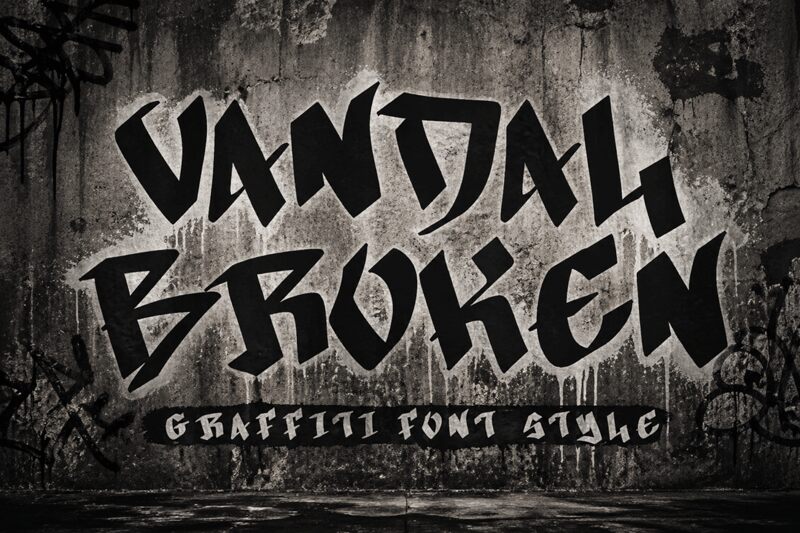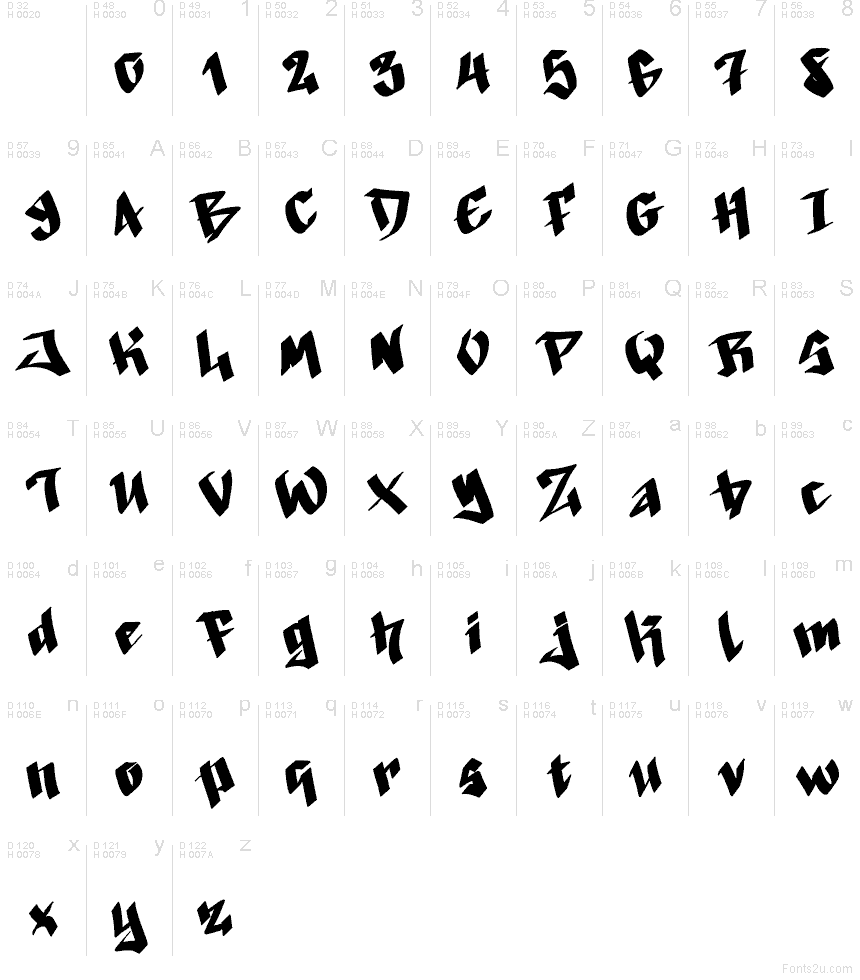
Vandal Broken Demo
Vandal Broken is a free graffiti display font with a compact, dark silhouette and abrupt shifts between broad strokes and needle-sharp points. Its uneven angles make each letter feel hacked from a painted surface.
A gig poster is its strongest setting, especially for punk, metal, or experimental acts, and the same rough, decisive attack also suits skateboard graphics and streetwear packaging. In magazine design, its slashed forms can turn a cover line into part of the artwork, echoing torn collage, marker scrawls, and photocopied textures rather than behaving like neutral type.